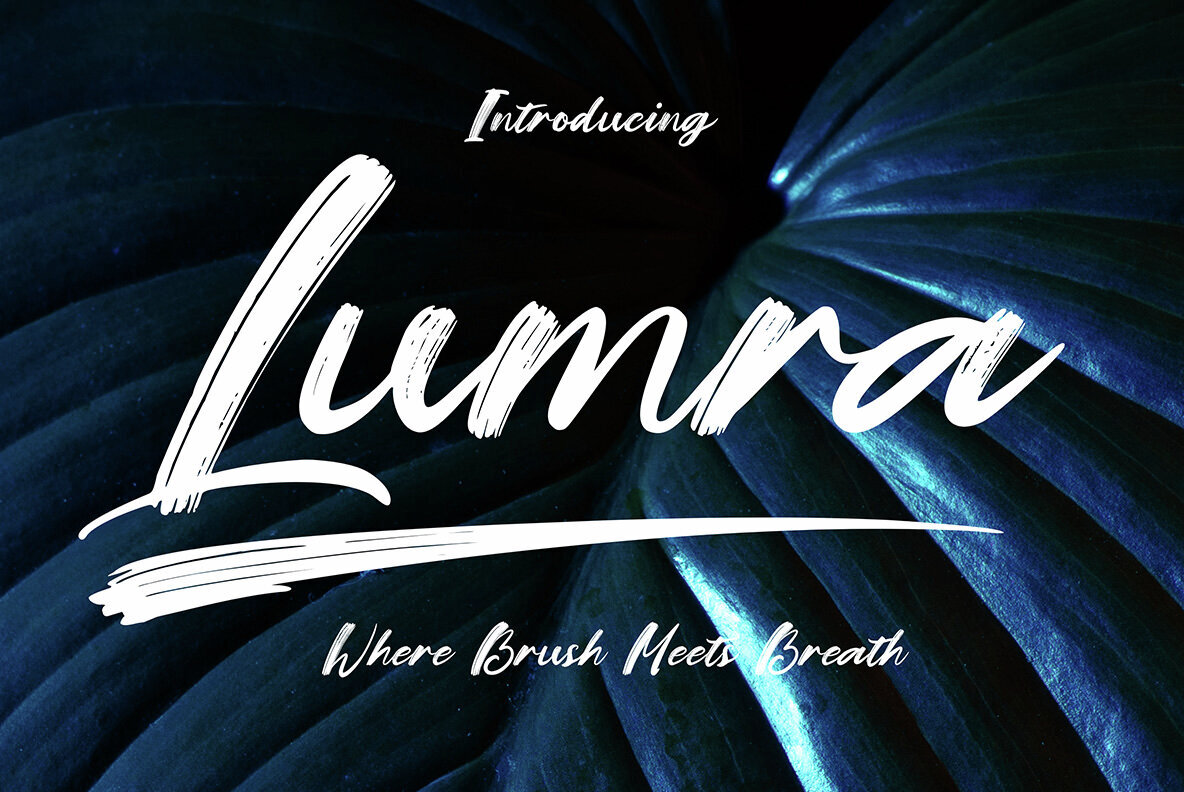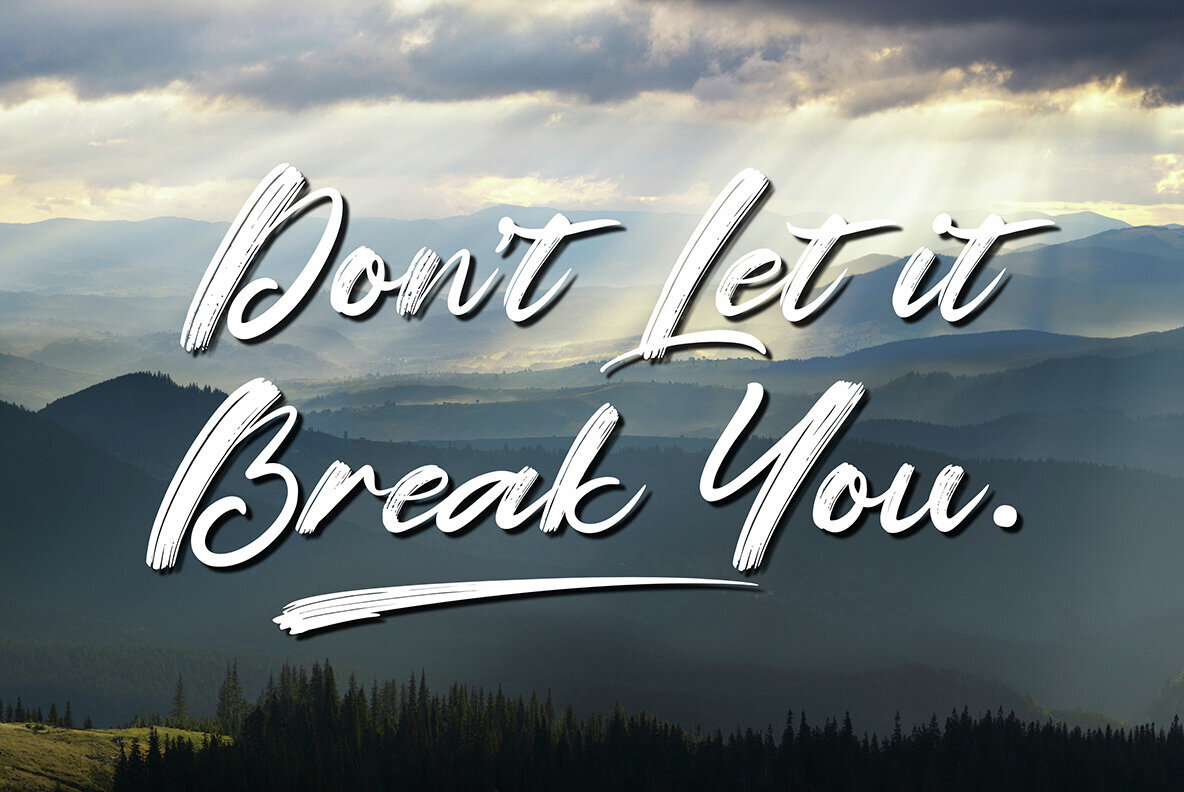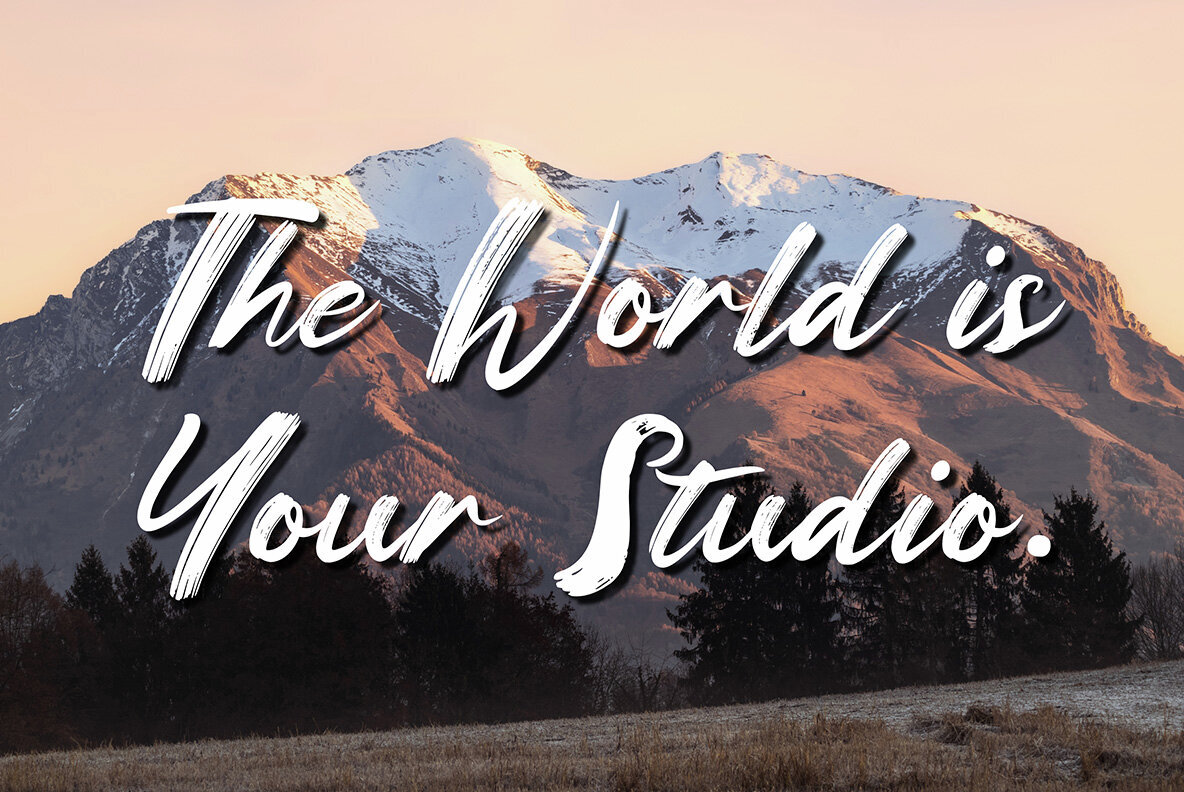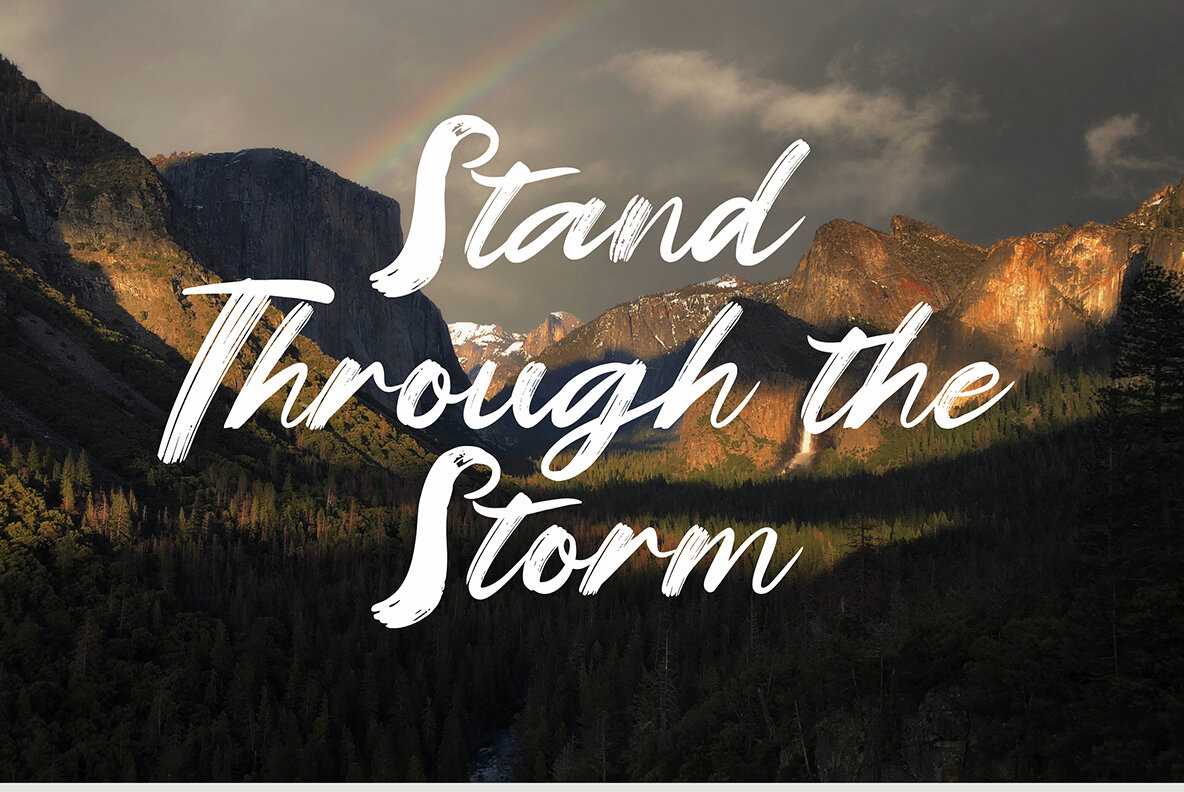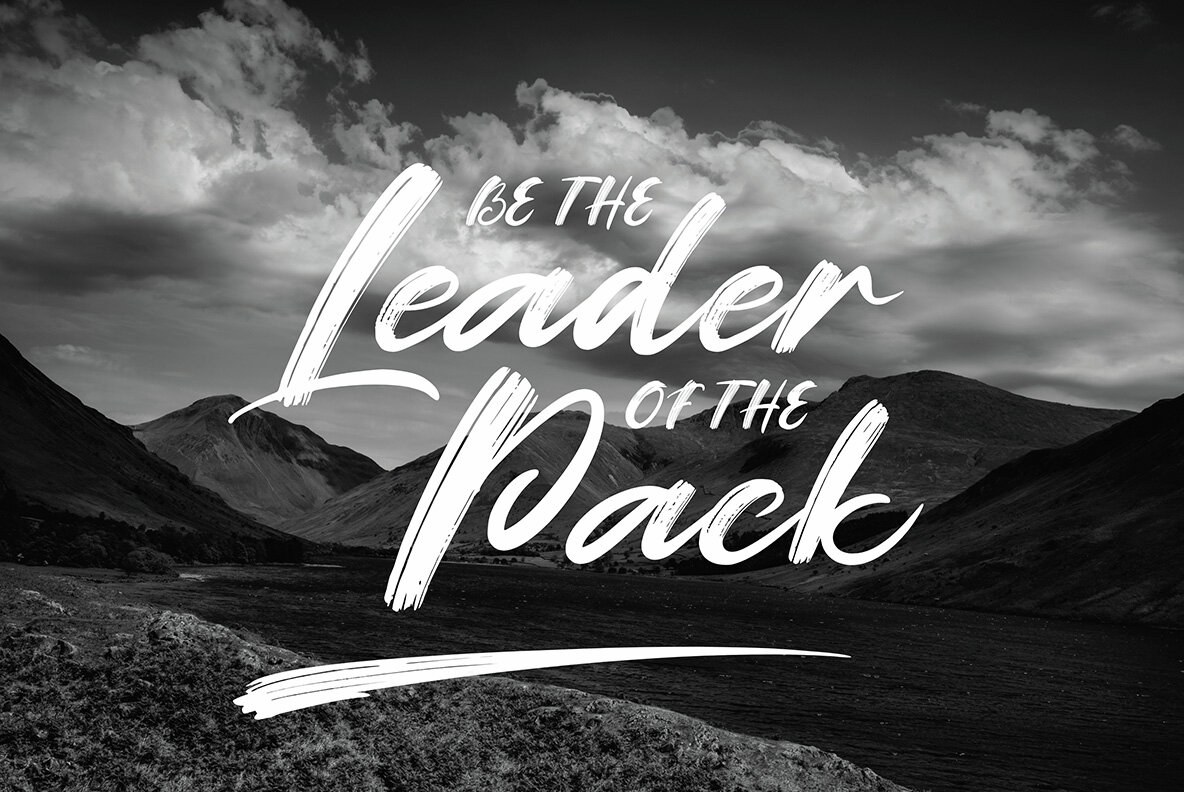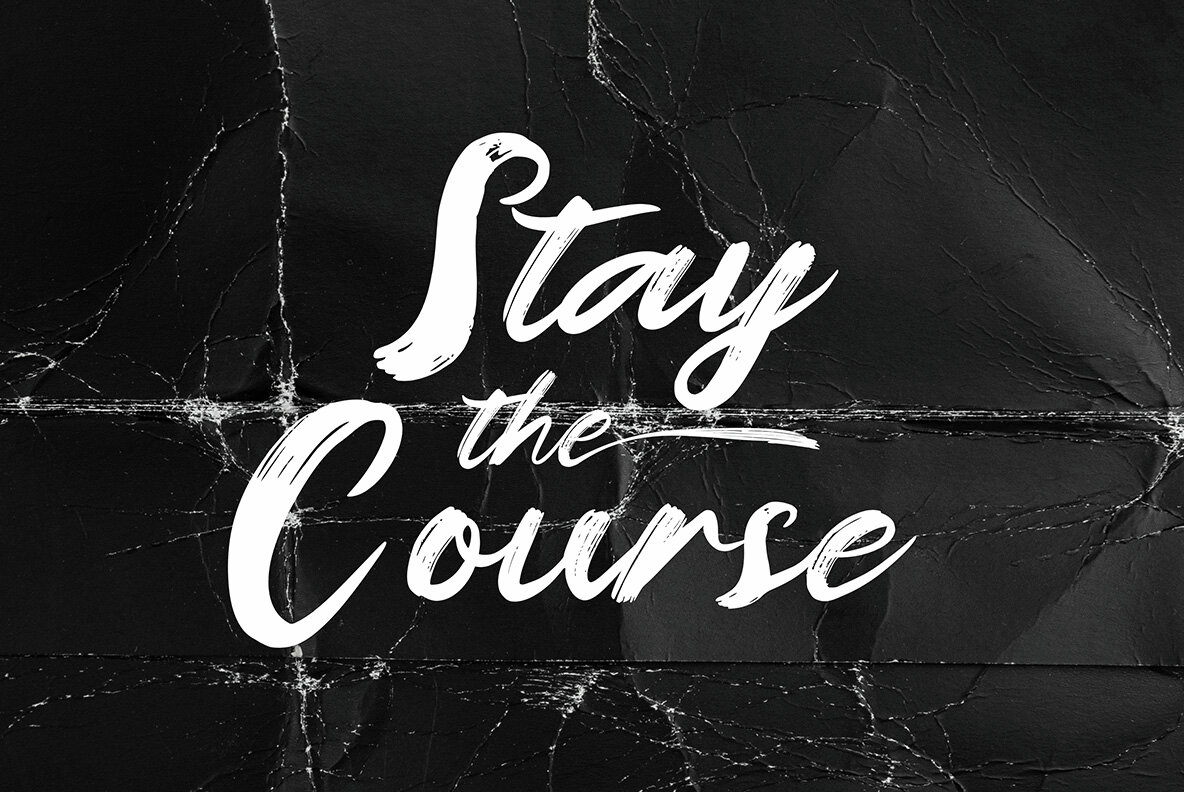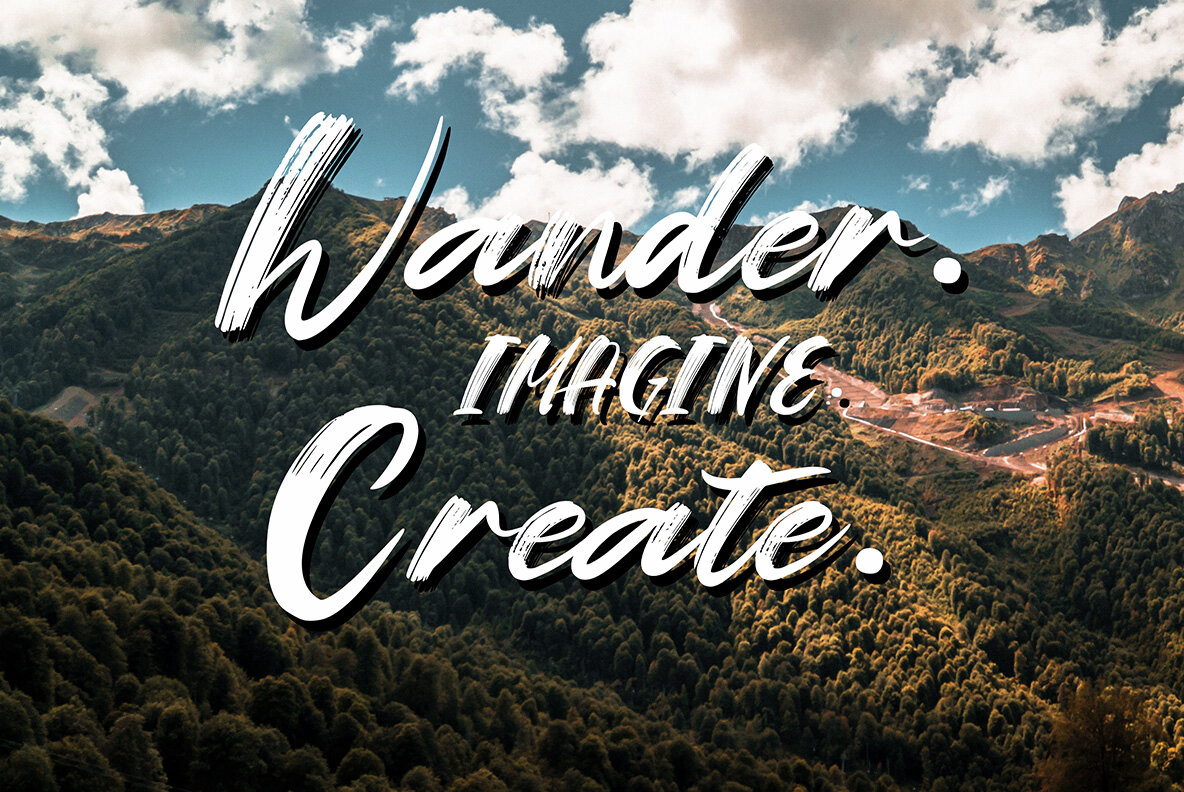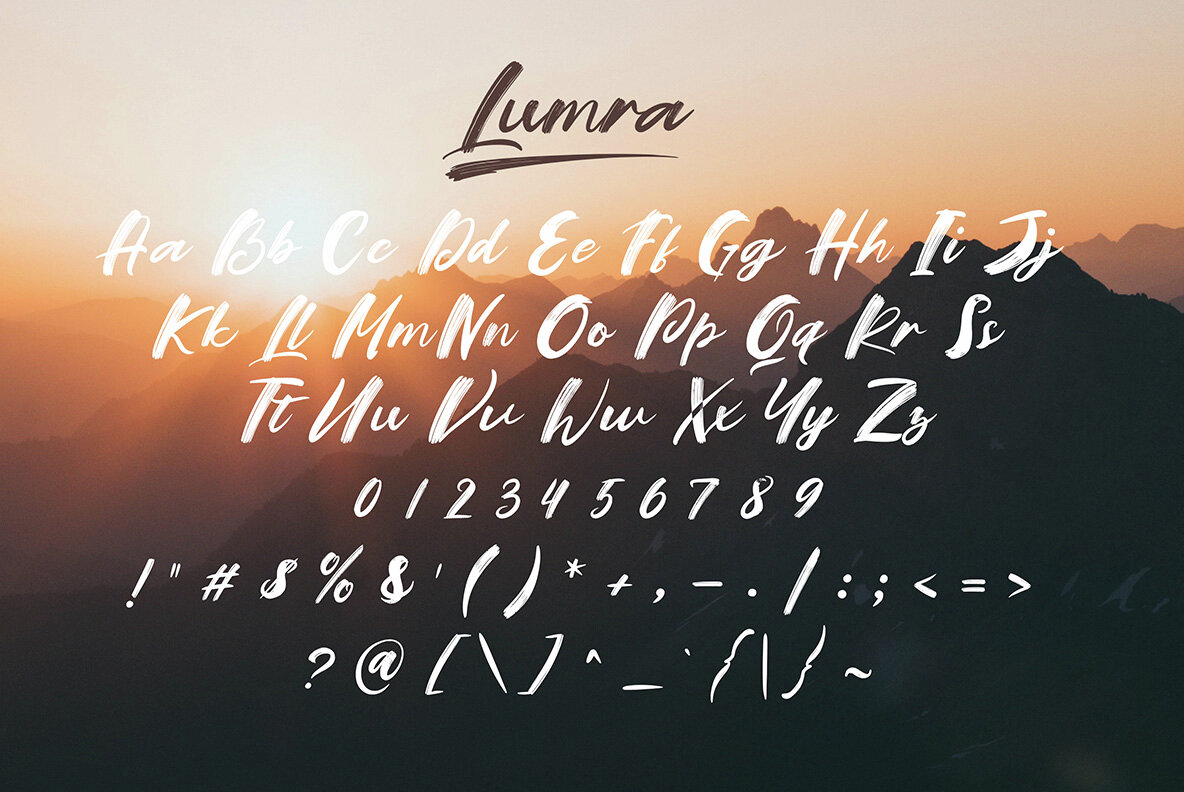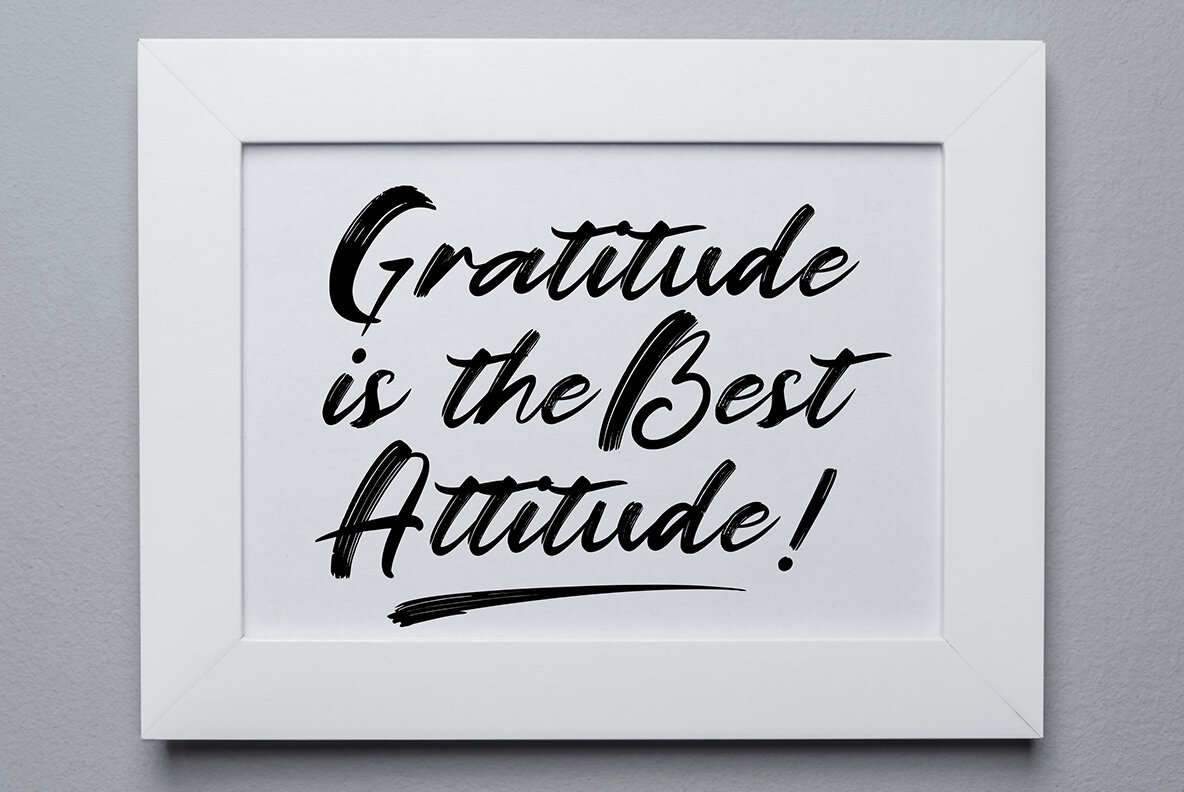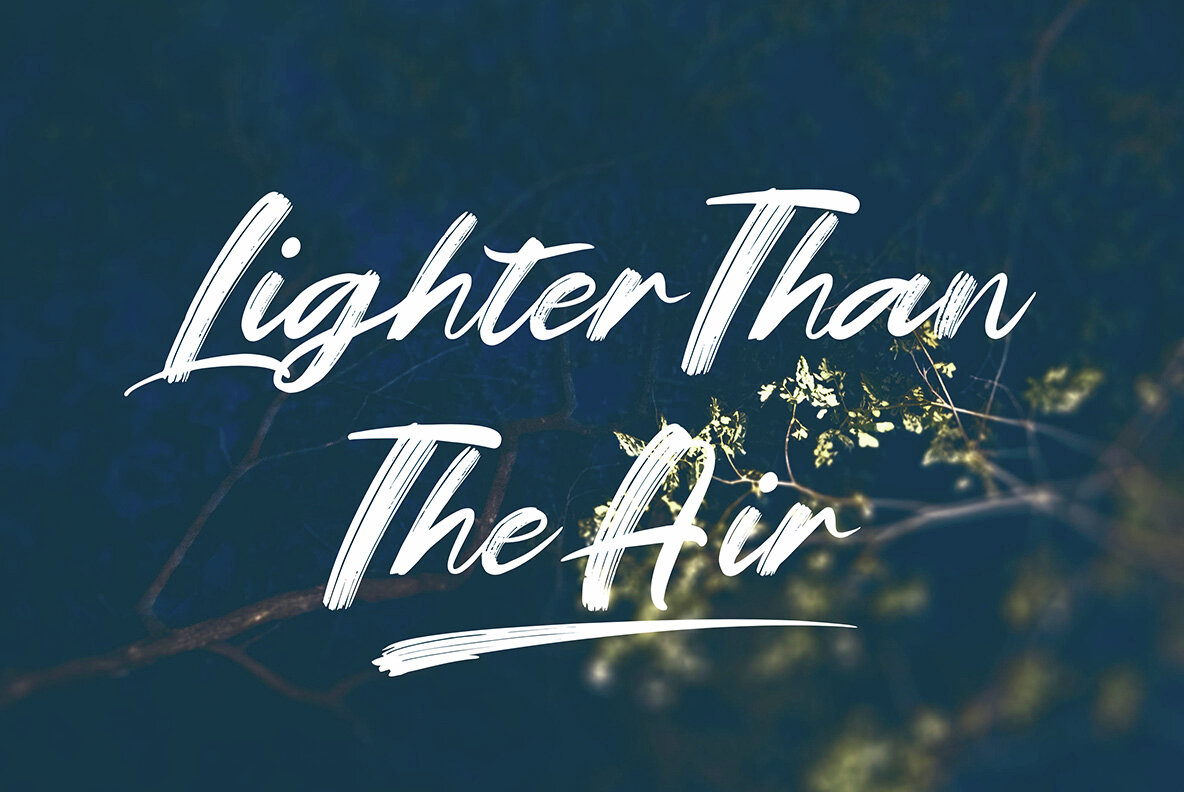
Lumra Font
Lumra
Embodying boldness and expression, Lumra is a dynamic brush script font designed to energize your words. Whether you're crafting a logo, penning a quote, or designing invitations, Lumra infuses each project with life, movement, and a hint of imperfection. This hand-crafted font adds a personal and artistic flair to your typography, making it perfect for those who value heart and attitude in their designs. Let Lumra be your creative ally, giving your designs a bold or subtle touch as required. Perfect for those seeking a unique and artistic edge in their typographic creations.Lumra: The Brush Script That Speaks
Features of Lumra